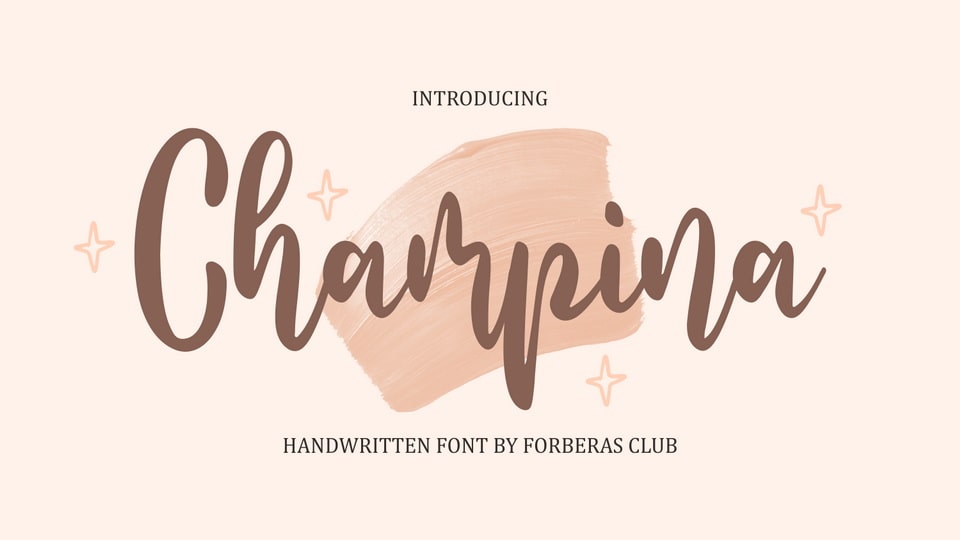
Download Champina font, a modern script typeface inspired by modern and ligature characters. Champina is especially designed for luxury, elegant, feminine projects.